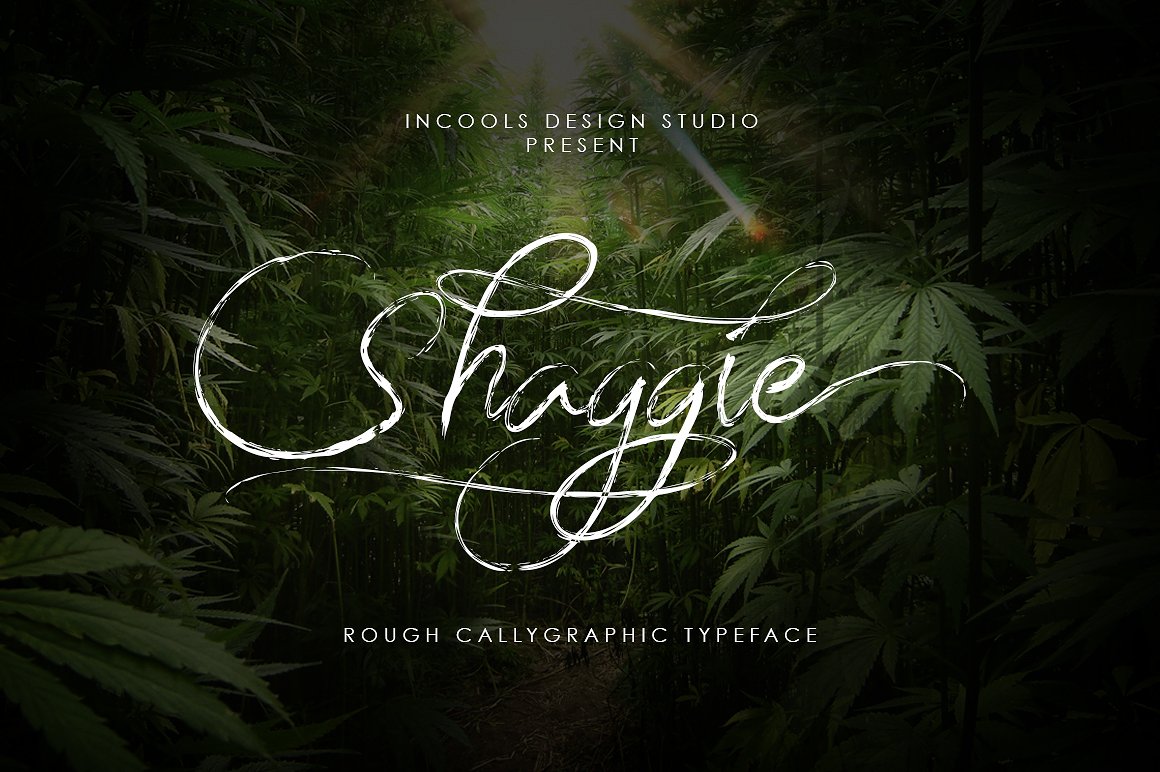
Shaggie Script
Shaggie Script Font
Rough, dancing, nicely curved, yeah… its shaggie. a made with love typeface. It’s made to deliver your good feeling into a letter. shaggie formed by rough line, classic and elegant touch. Can be used for various purposes, such as headings, signature, logos, party invitation, t-shirt, letterhead, signage, label, posters, badges etc.